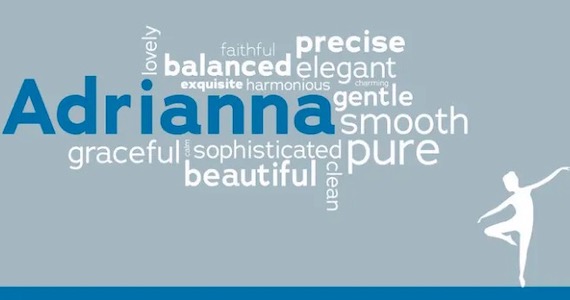
Adrianna is a fashionable and very suite restrained sans serif font family for sophisticated & modern designs. It’s a smart and versatile family of fonts, this family includes 36 different styles across a range of 3 variant widths.
It was designed by Chank Diesel and then, this font family was released by Chank along with over 400 gorgeous glyphs and legible strokes. It’s produced from the inspiration of great sans serif fonts of the 20th century.
Adrianna Font Family works beautifully & well for advertisements, web titles, branding, magazine titles, quotes and other design in a minimalist style as in the sample preview below.
Adrianna Sans Serif Font